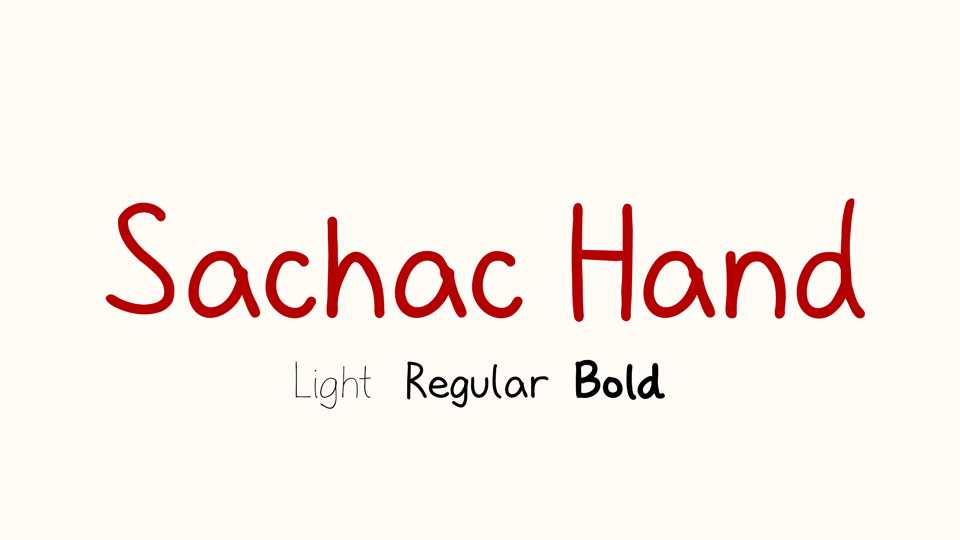
Download Sachac Hand typeface a simple hand drawn font family based on a real handwriting. Sachac Hand has a very relaxed and friendly appearance and is ideal for notes, labels, packaging and child-friendly projects.
Designer: Sacha Chua